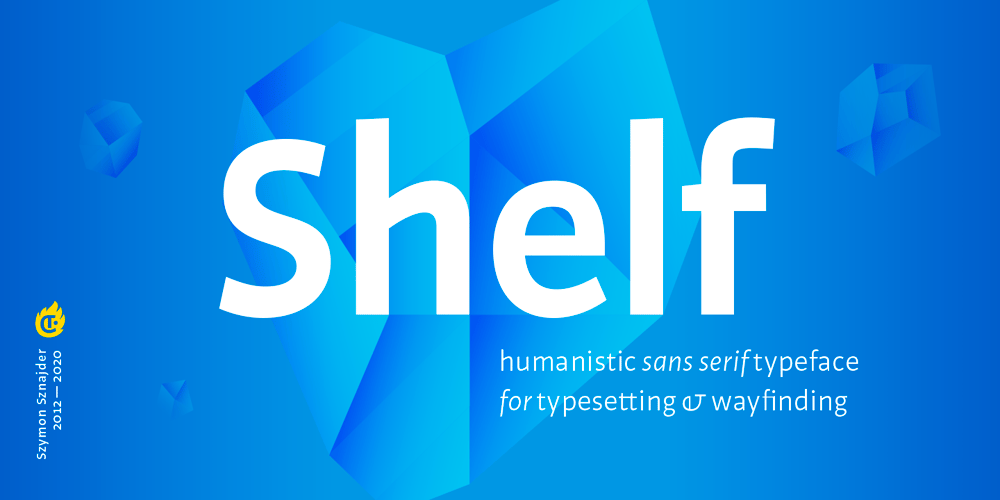
Shelf Font Family was designed by Szymon Sznajder and published by 21Type. Shelf contains 27 styles and family package options. Shelf is a humanistic sans-serif font of cool and solid character. Its frugal, clean and organic drawing as well as its name were inspired by the ice shelf landscape. Shelf was designed as a universal tool for creating a coherent information and navigation systems with accompanying publications, such as visual identity of exhibitions including catalogues. It is suggested to set long texts in Roman and Italic, while the best combination for a wayfinding system is Roman and Oblique. Every weight, therefore, contains Roman, Italic and Oblique versions. The variety of over 1500 glyphs constitutes a rich set of Latin script characters. Shelf includes small caps, a broad set of figures, a wide set of alternative style variants, arrows and a number of OpenType features.